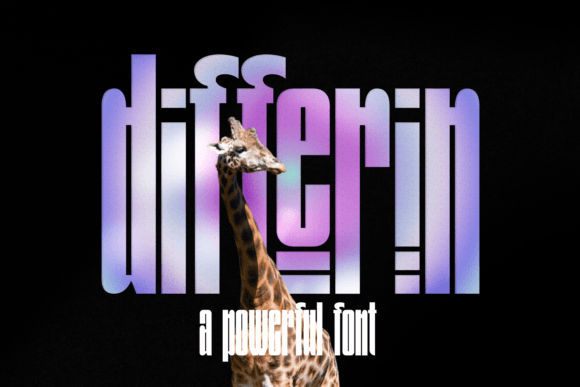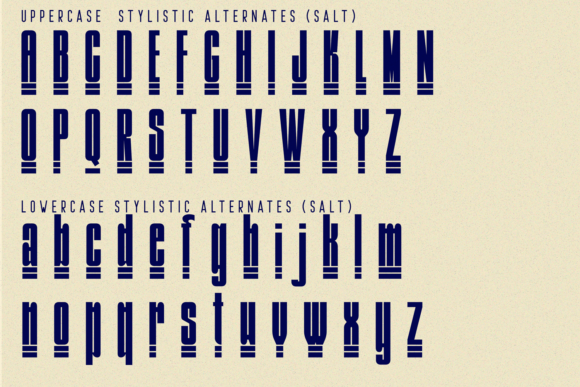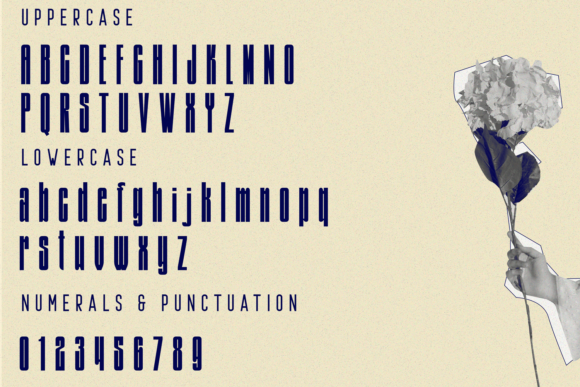
Differin is a tall, geometrically inspired display font. It can be used in elegant contexts reminiscent of Miami Deco Art of the 80s but, at the same time, it looks amazing with the neon color gradients of the 90s. This font is PUA encoded which means you can access all glyphs and swashes with ease!
Differin Font